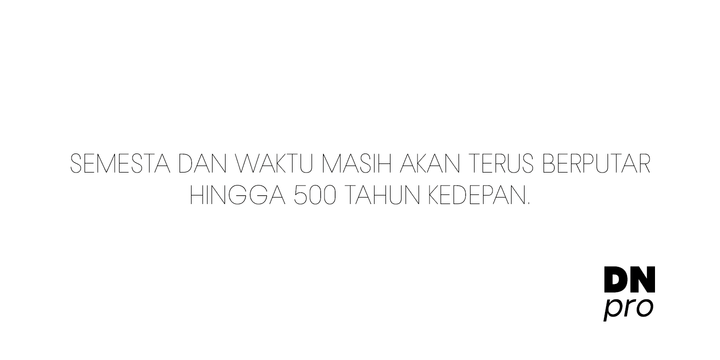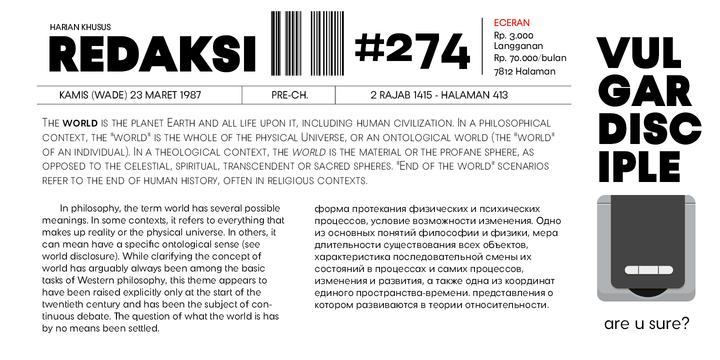
Total 18 styles, support extended latin and cyrillic. DN pro is geometric and modern sans serif. Has a features small caps, case-sensitive, standard/discretionary ligatures, numeral set and more.
Alternates character : Stylistic alt : @ set 01 : A, Y, a, y set 02 : A, Y, a, y set 03 : A, W set 04 : C, W, c, w set 05 : C, V, c set 06 : E, v, e set 07 : G, e, g set 08 : G, i set 09 : K, , k, , set 10 : M, m, l set 11 : M, n, r set 12 : Q, r set 13 : S, s set 14 : T, u set 15 : T set 16 : , set 17 : , set 18 : , set 19 : ,